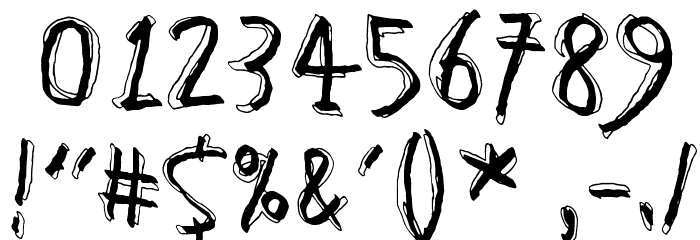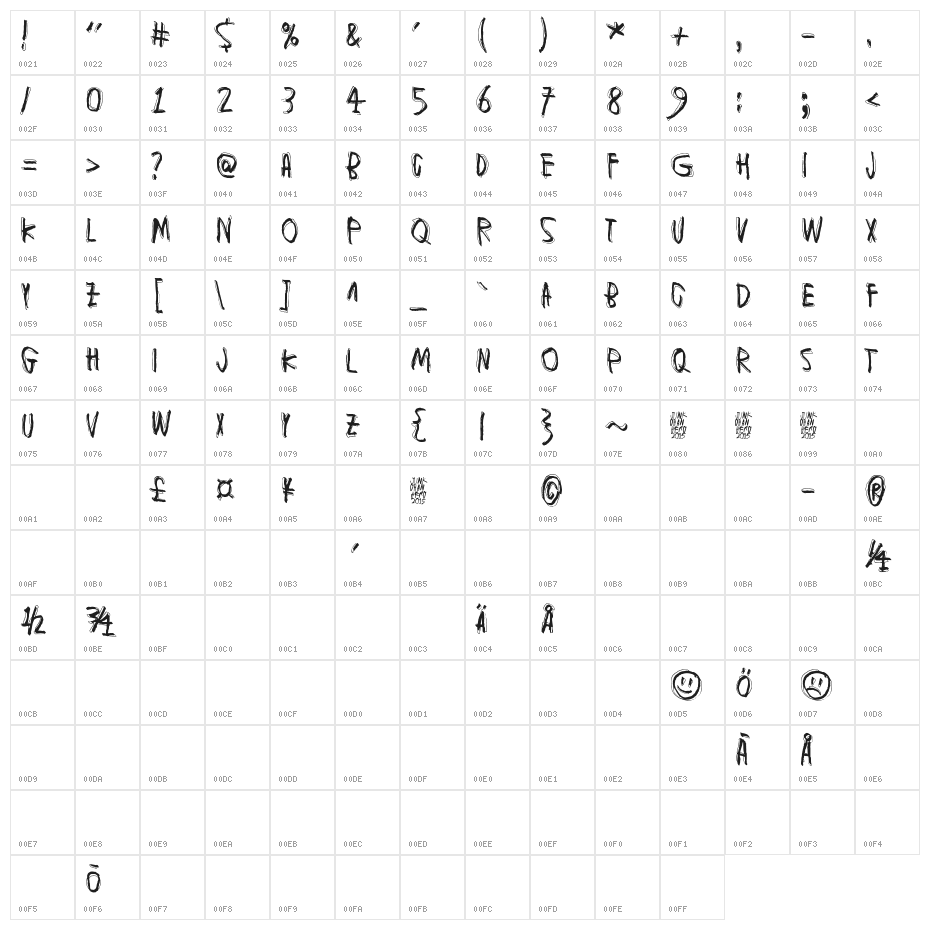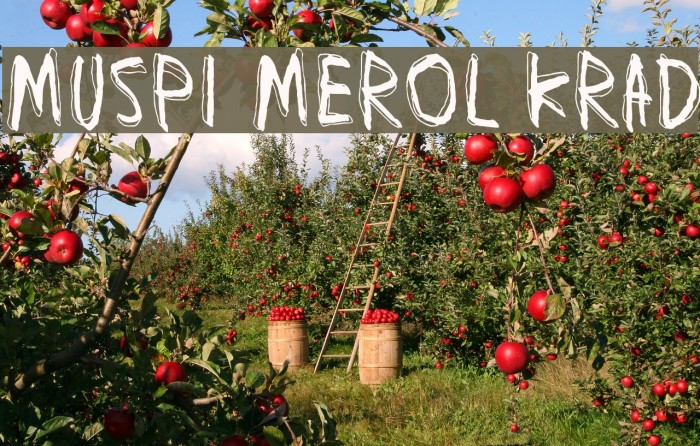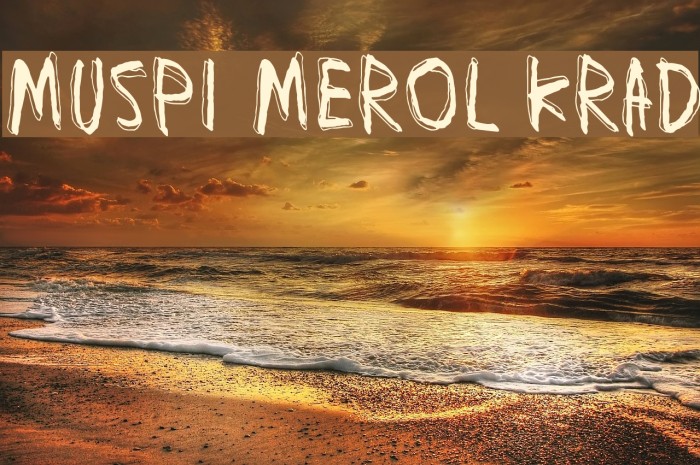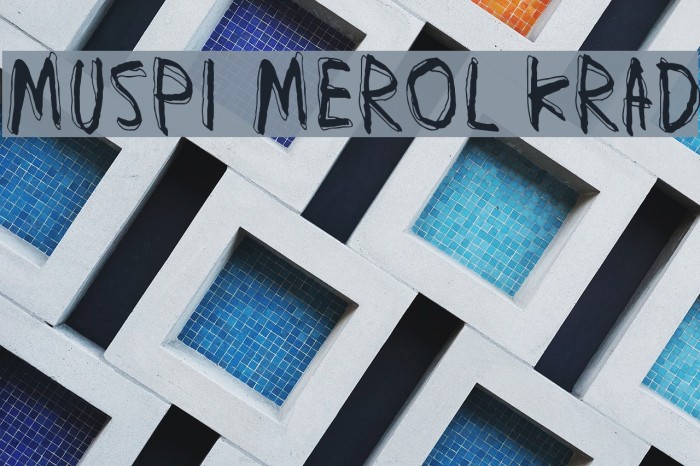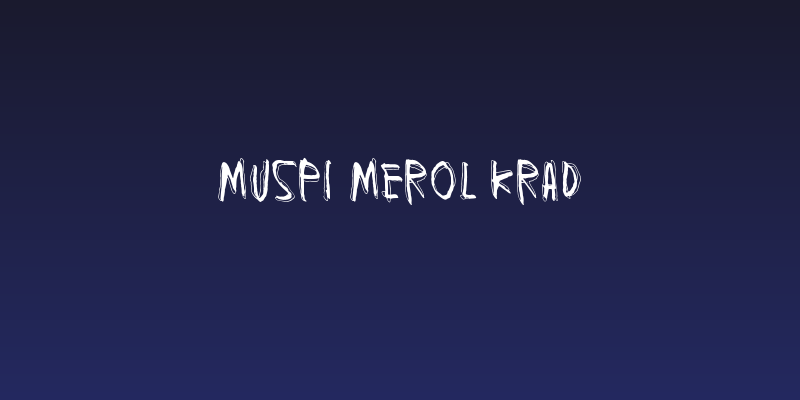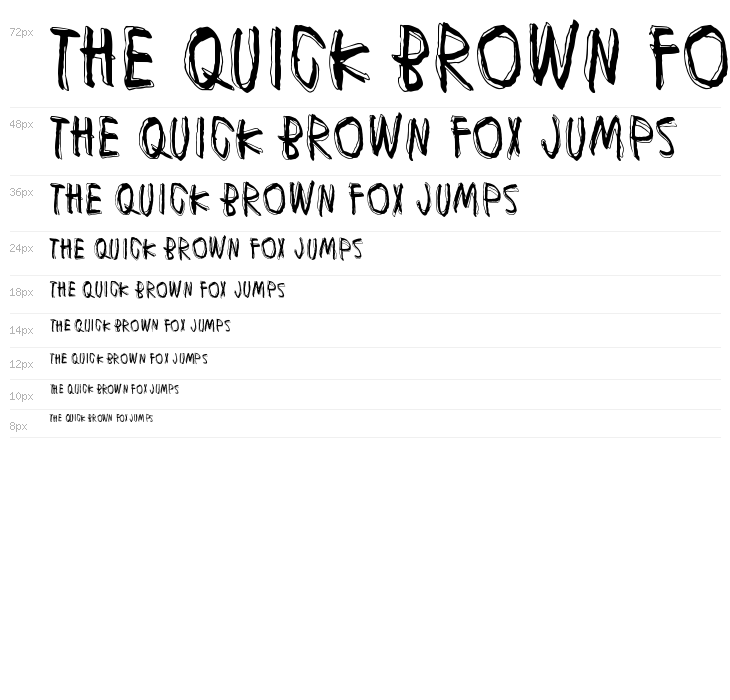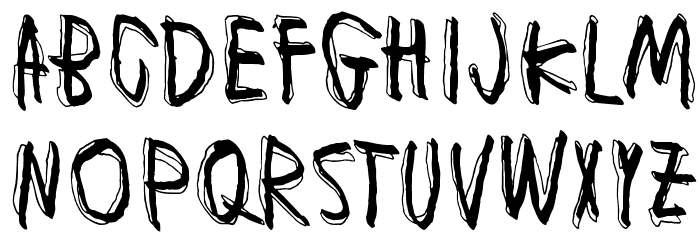
Muspi Merol Krad Font
Muspi Merol Krad Description
This font features a bold, hand-drawn style with a rough, sketch-like appearance. The characters are irregular and dynamic, giving a sense of movement and energy. The strokes are thick and uneven, contributing to a raw and expressive aesthetic. The uppercase and lowercase letters maintain a consistent style, with exaggerated curves and angles that create a unique visual rhythm. The numbers and special characters follow the same design principles, ensuring a cohesive look across all elements. This font is ideal for projects that require a bold, artistic touch.